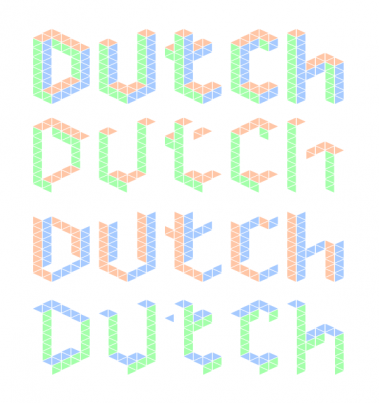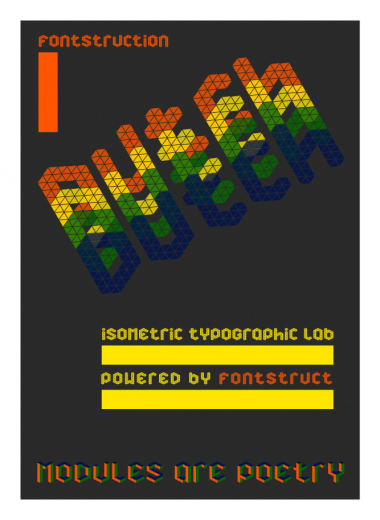
My own Escher-style font, based on the title of dutchprofiles.com :
Allows multicoloring, blanks and 3D effects.
See also Tesselation by funk_king.
Whoa! The letters have surprising twists and turns and I don't know if it's coming or going. Cool!
Wow. There's an almost 3d-spatial effect to the inside of the forms. Can't stare at it too long, I'm scared of falling between the bars into a parallel universe.
Wow! Someone else discovered the beauty and difficulty of the triangular geometry. Kudos for the colorful sample. 10/10
Thanks guys, but it's not a fully original work again. Do you face the same moral dilemma sometimes ?
very nice, ir. thanks for the shoutout :) is anything really original these days. i mean really really original? as a creative person, i worry less about 'if somebody else has done this' and much more about 'will i continue to be creative?' i think when building out a character set based on a few pre-existing glyphs, you are doing someone a favor somewhere that will use it. i think as long as you cite the source, you have done the right thing and there is no moral dilemma :) rock on.
Using different colors for the different faces can make the 3D effect more readable.
Very nicely finished, when I seen the original 'ducth' type I thought that would make a great fontstruction, and here we are. :)
The samples really showoff the creative potential of this typeface. Nicely done.